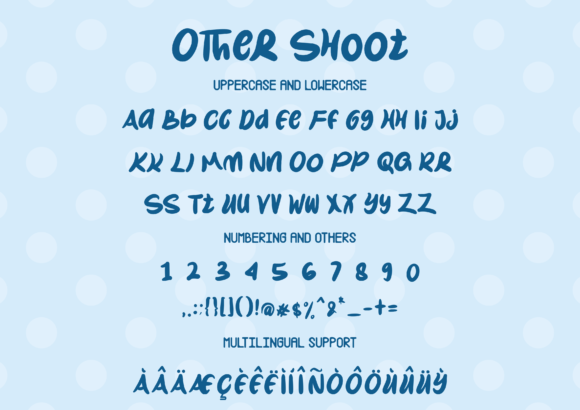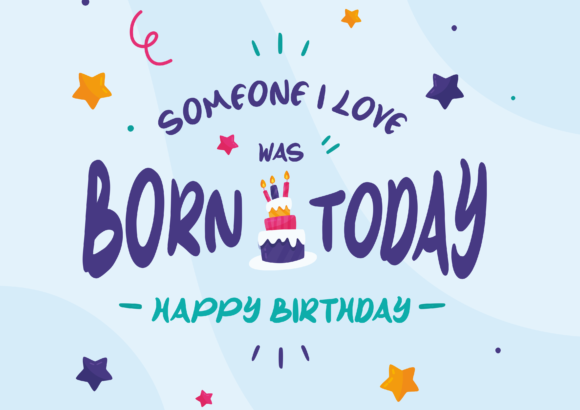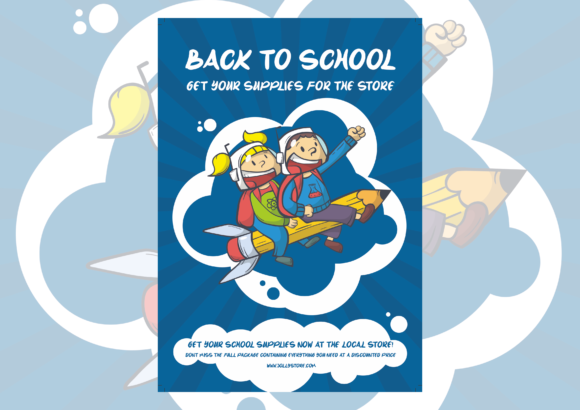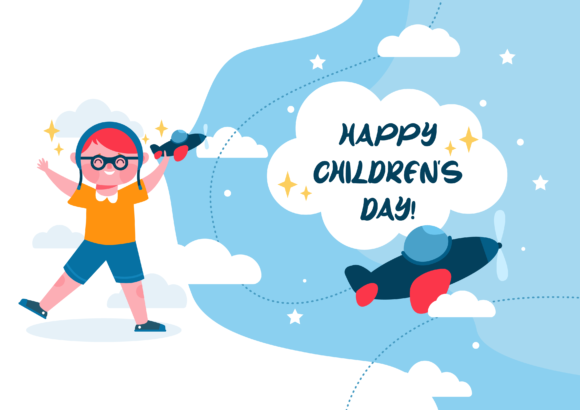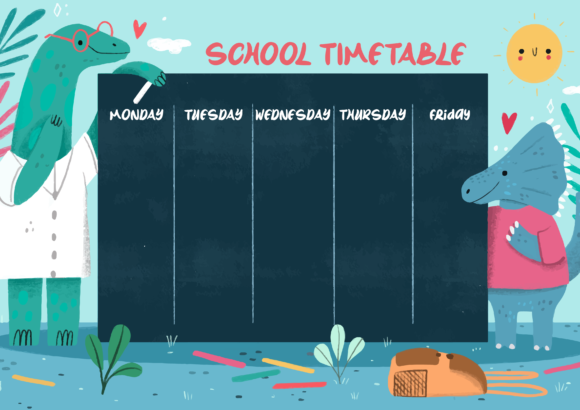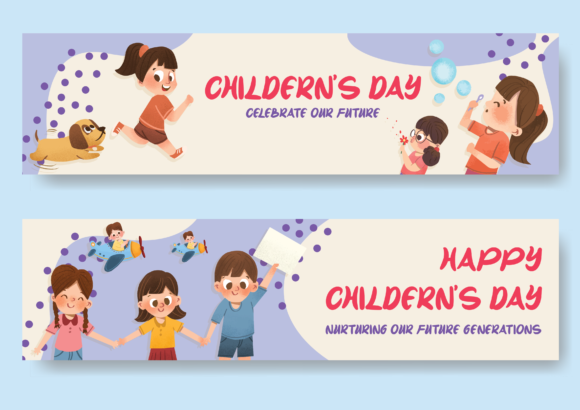
Introduction to Other Shoot Font
Have you ever stared at a blank canvas, waiting for inspiration to strike, only to have a burst of creativity flood your mind? For designers, those moments are priceless. And when it comes to bringing that creativity to life, the right design resource can make all the difference. Enter Other Shoot Font, a cool and chic display font that’s sure to add a touch of joy to any creative project.
Whether you’re designing a cartoon character, creating a children’s game, or crafting a quote that needs to stand out, Other Shoot Font is a high-quality choice that’s sure to deliver. With its transparent background and clean lines, this font is perfect for designers who want to add a pop of personality to their work. And the best part? It’s available for free download, making it an invaluable asset for any design project.
- Features a unique, modern design aesthetic that sets it apart from other fonts
Honest Review: Other Shoot Font
As a designer, I’m always on the lookout for high-quality design resources to elevate my creative projects. I recently stumbled upon the Other Shoot Font, and I’m excited to share my honest review with you.
What works well: ✨ The Other Shoot Font offers a wide range of characters, including Latin, Cyrillic, and Greek alphabets, making it a versatile choice for various design projects. The font also features a transparent background, allowing for seamless integration into your design.
What I like most about the Other Shoot Font is its modern and sleek design aesthetic, which makes it perfect for contemporary design projects. The font is also incredibly easy to use, even for those who are new to font manipulation.
However, there are a few limitations to consider: ⚠️ The font’s design may not be suitable for more traditional or classic design projects. Additionally, the font’s character set is not as extensive as some other fonts in its category.
Overall, I’m impressed with the Other Shoot Font’s high quality and versatility. It’s a great addition to any designer’s toolkit, and I would definitely recommend it for free download. With its modern design and transparent background, it’s perfect for any creative project.
- Wide range of characters, including Latin, Cyrillic, and Greek alphabets
- Modern and sleek design aesthetic
Other Shoot Font is a high-quality design resource ideal for creative projects. It’s a free download that offers a unique and stylish aesthetic, perfect for adding a touch of sophistication to your work.
Other Shoot Font is ideal for:
- Business card and invitation design
- Web design and digital marketing